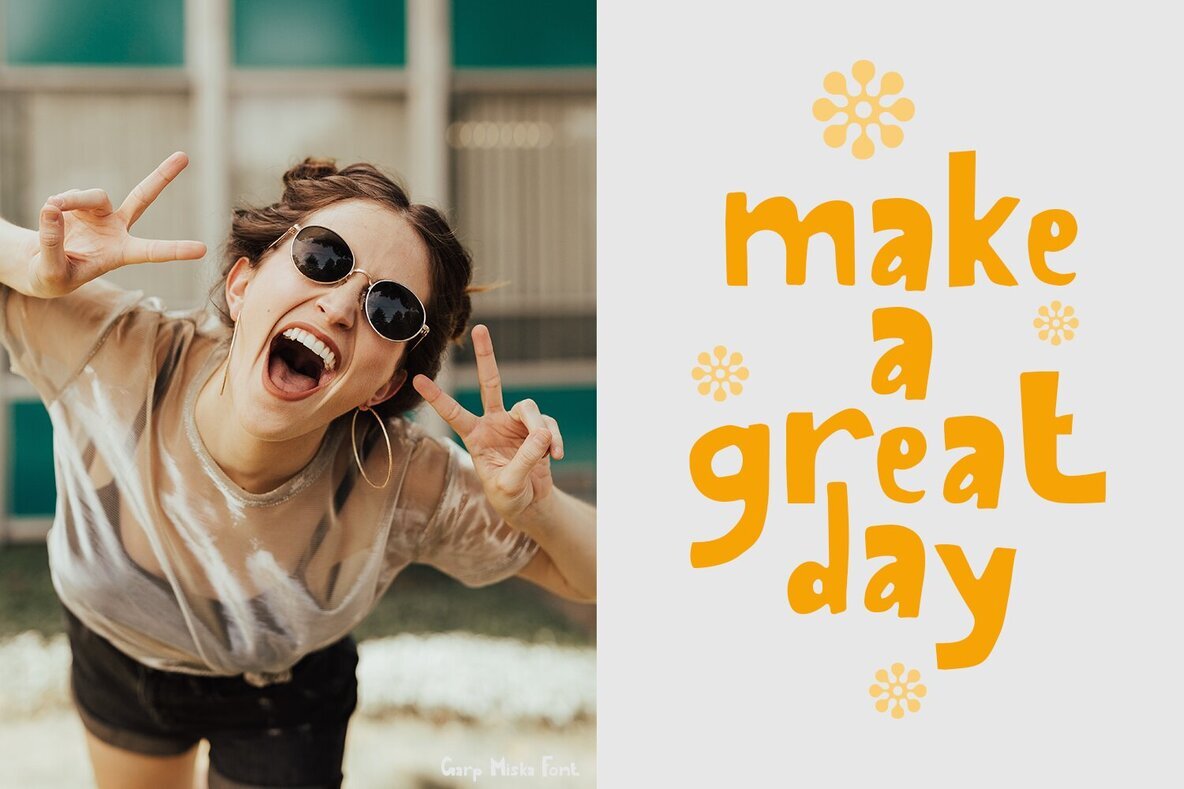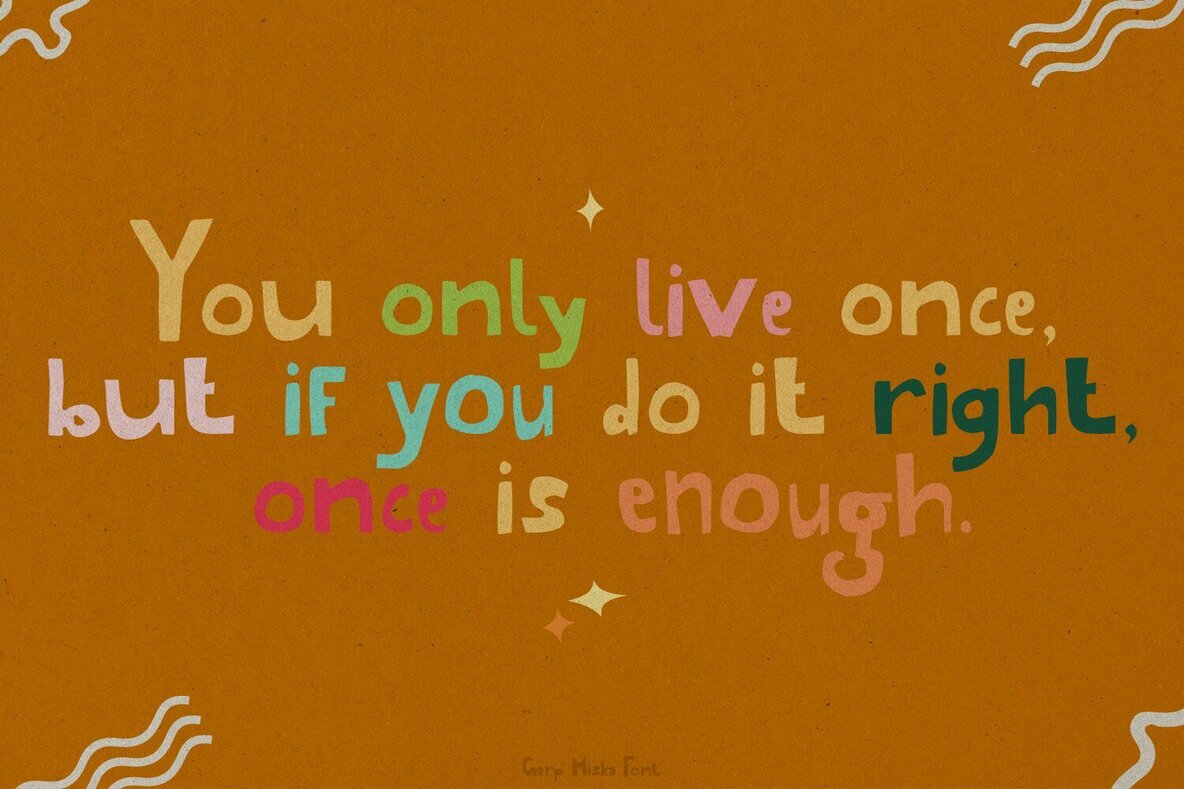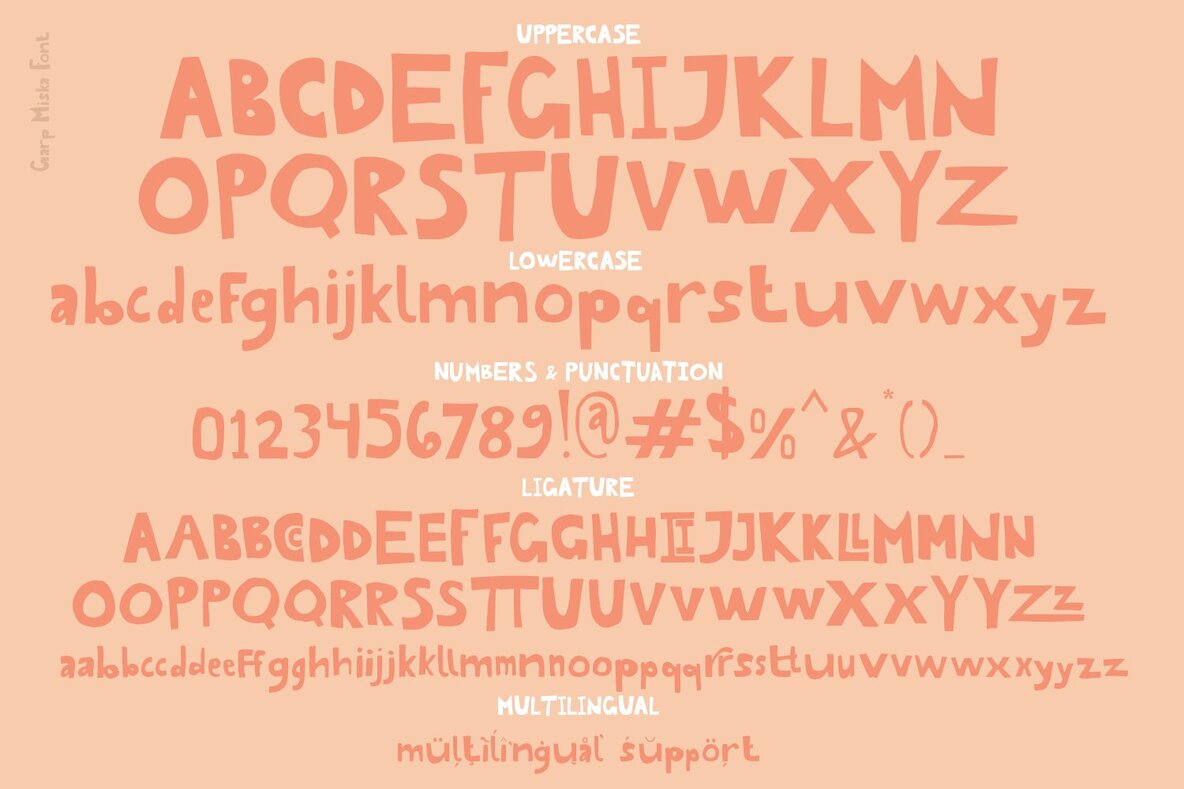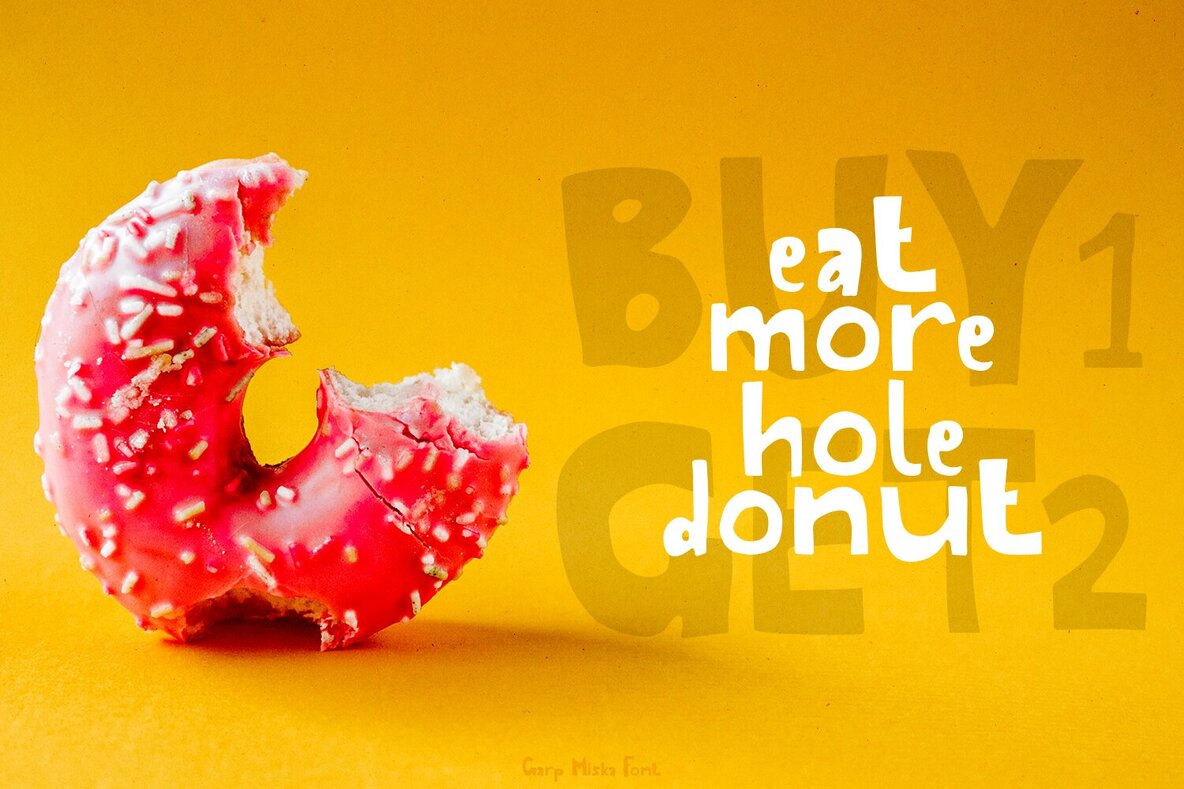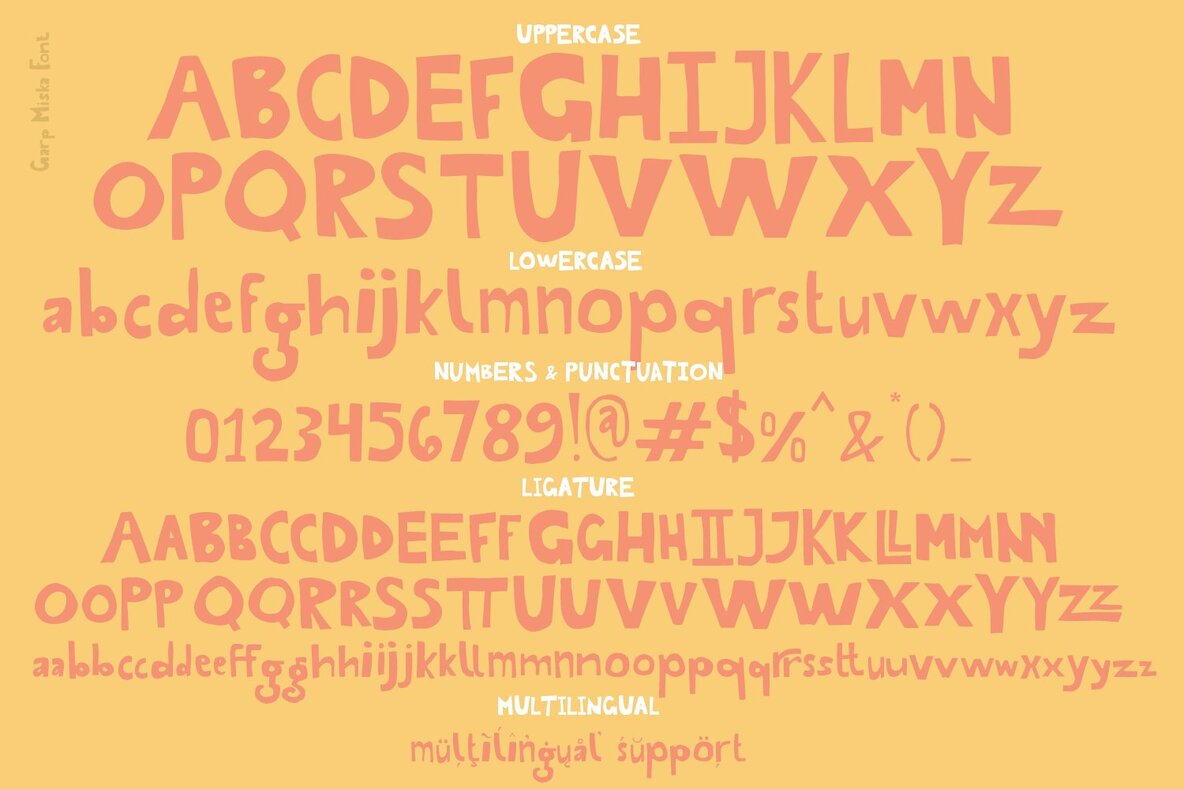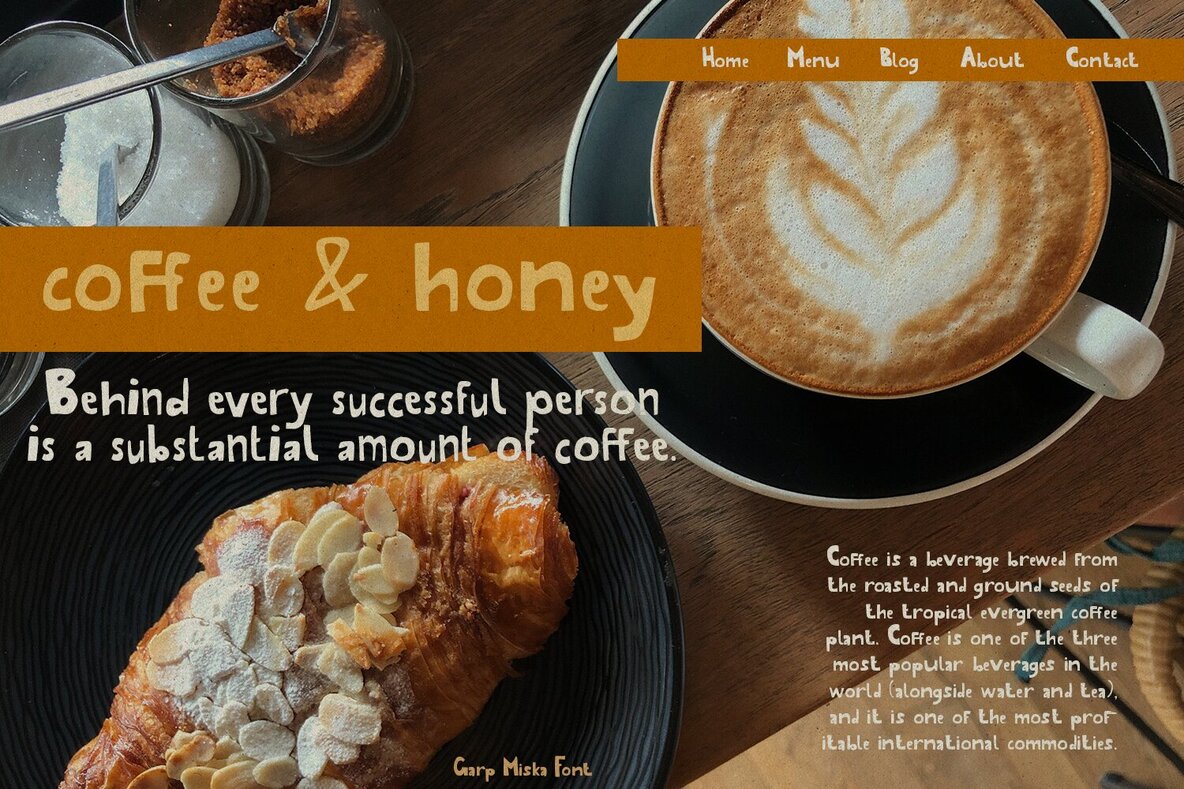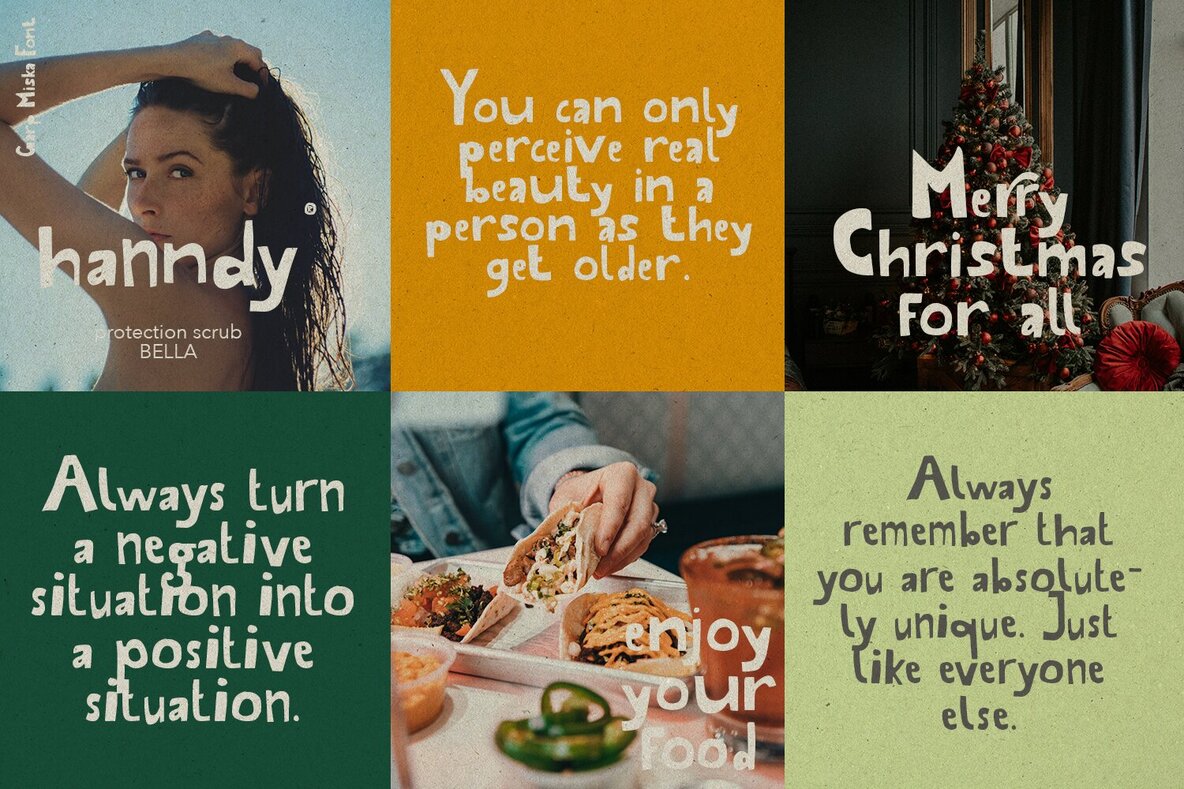
Garp Miska Font
Garp Miska is a delightful font featuring two distinctive styles: neu and regular. Its fun and cheerful appearance makes it an excellent choice for a variety of design projects.Garp Miska: A Charming Font with Playful Styles
Features of Garp Miska